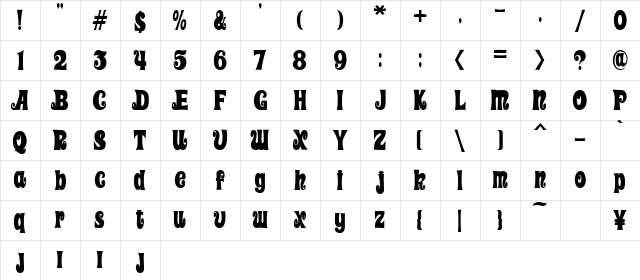
Bobo Black
Design Context for Bobo Typeface
Bobo is a composed and adaptable typeface that performs quietly and consistently across a wide range of design contexts.